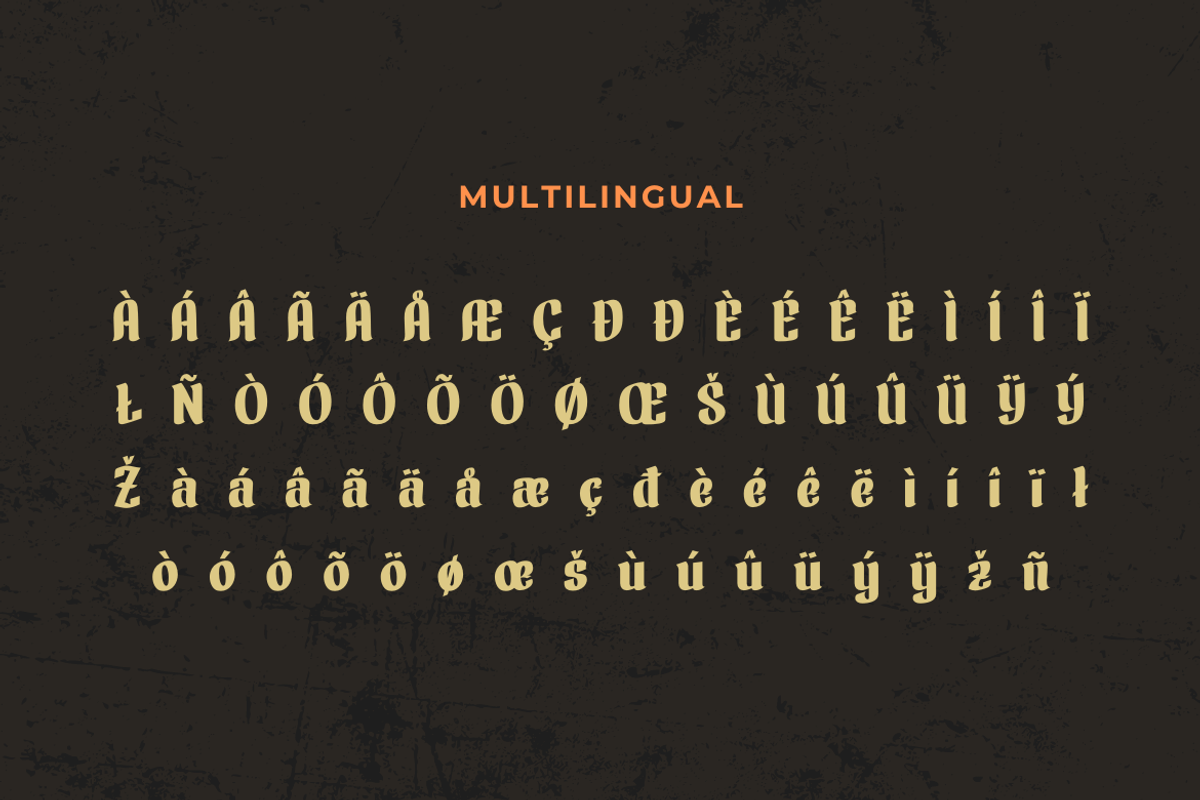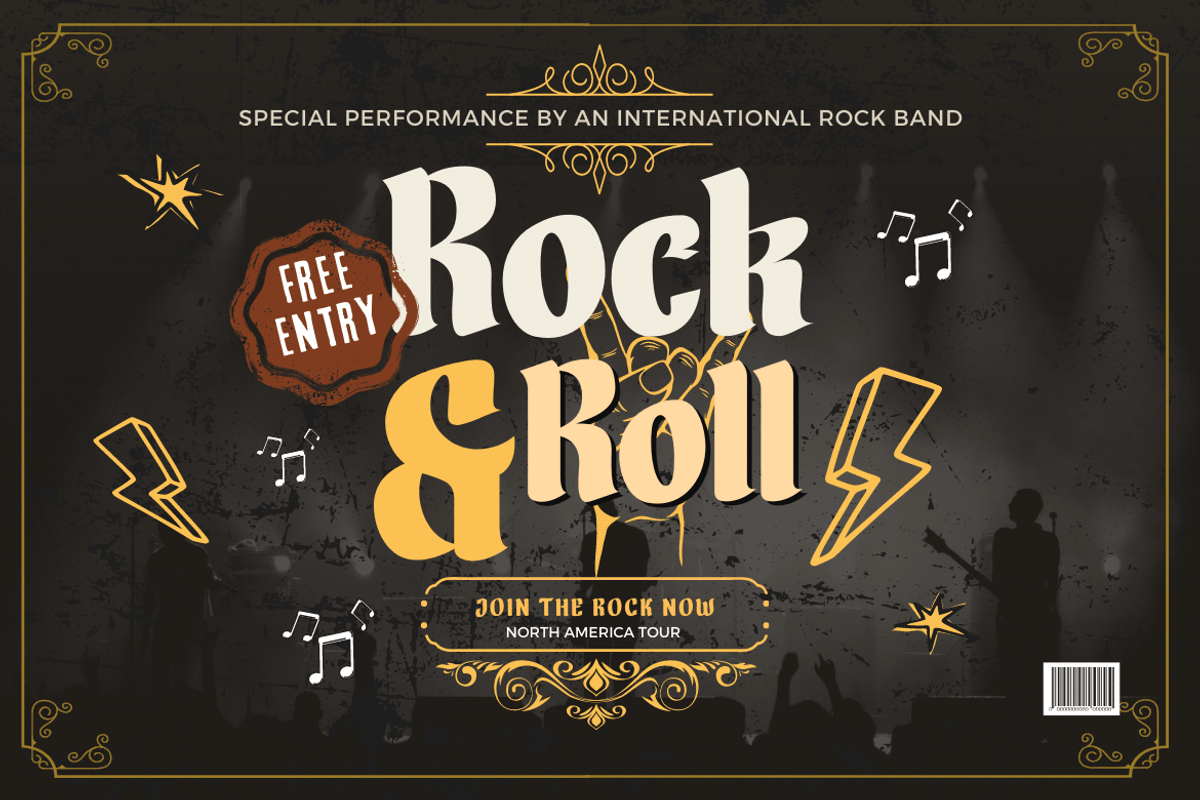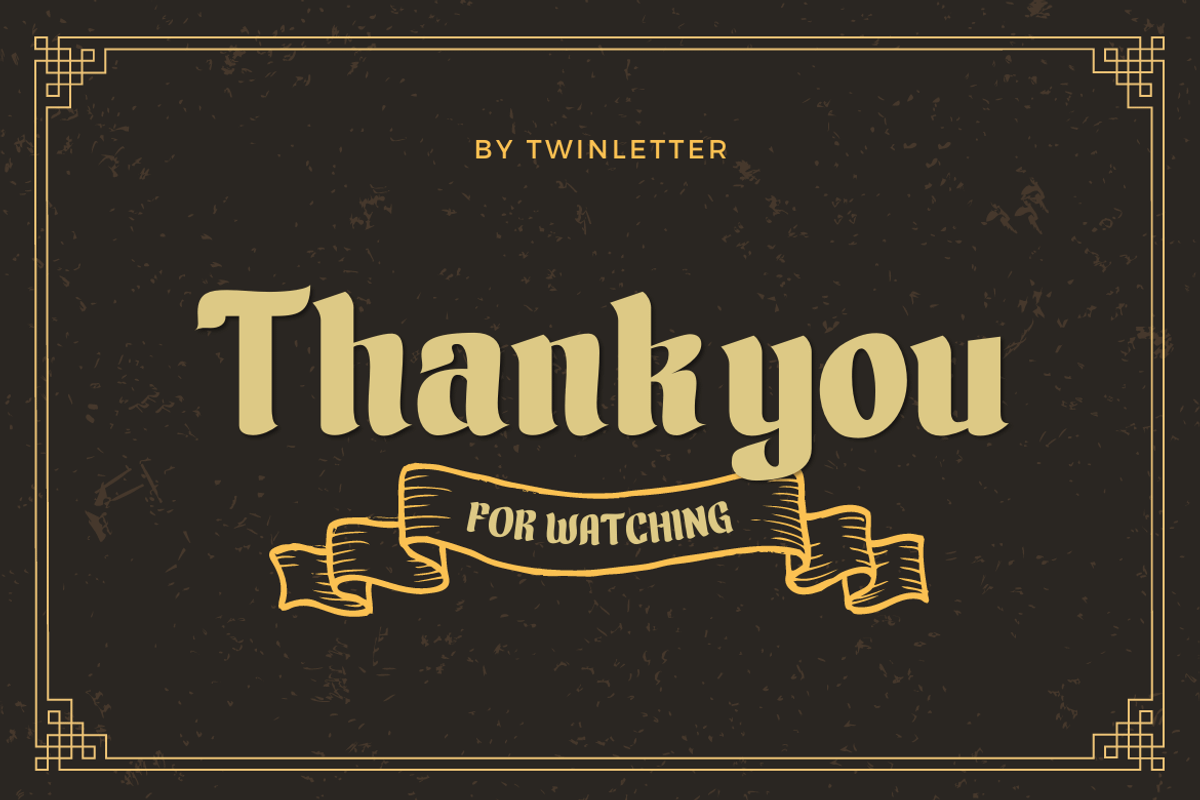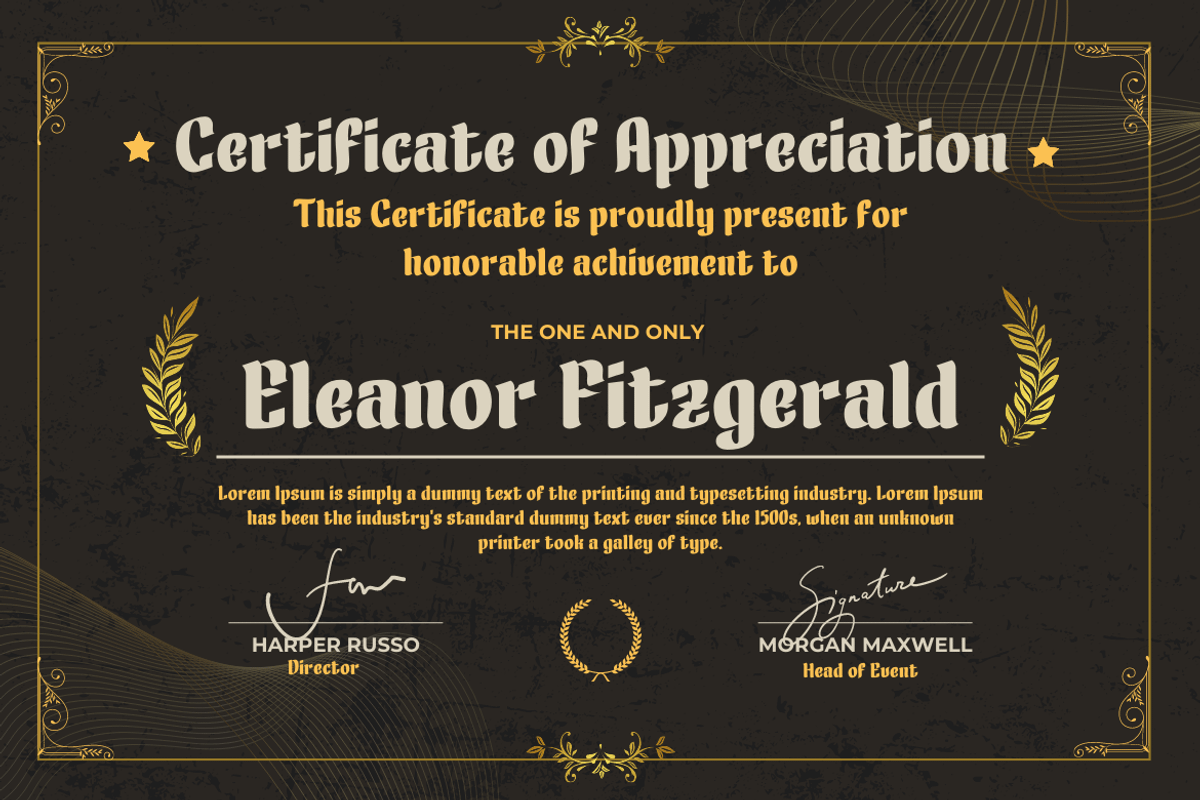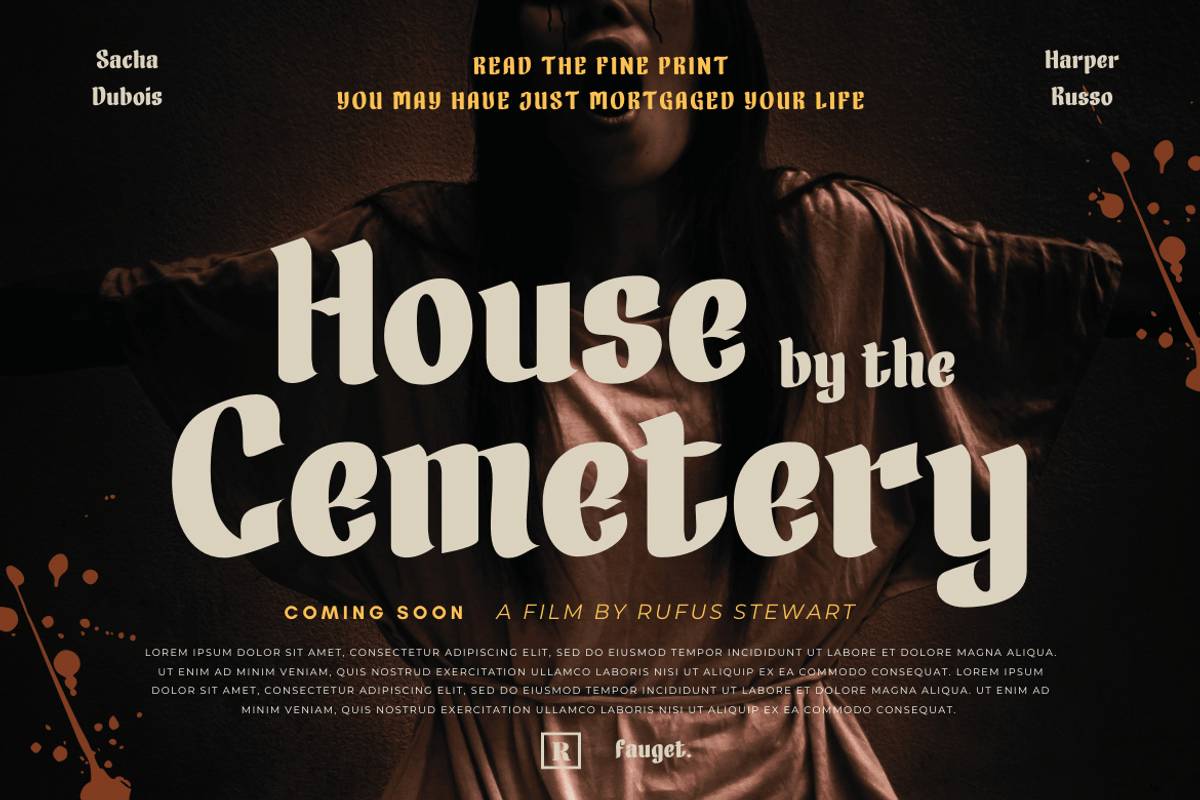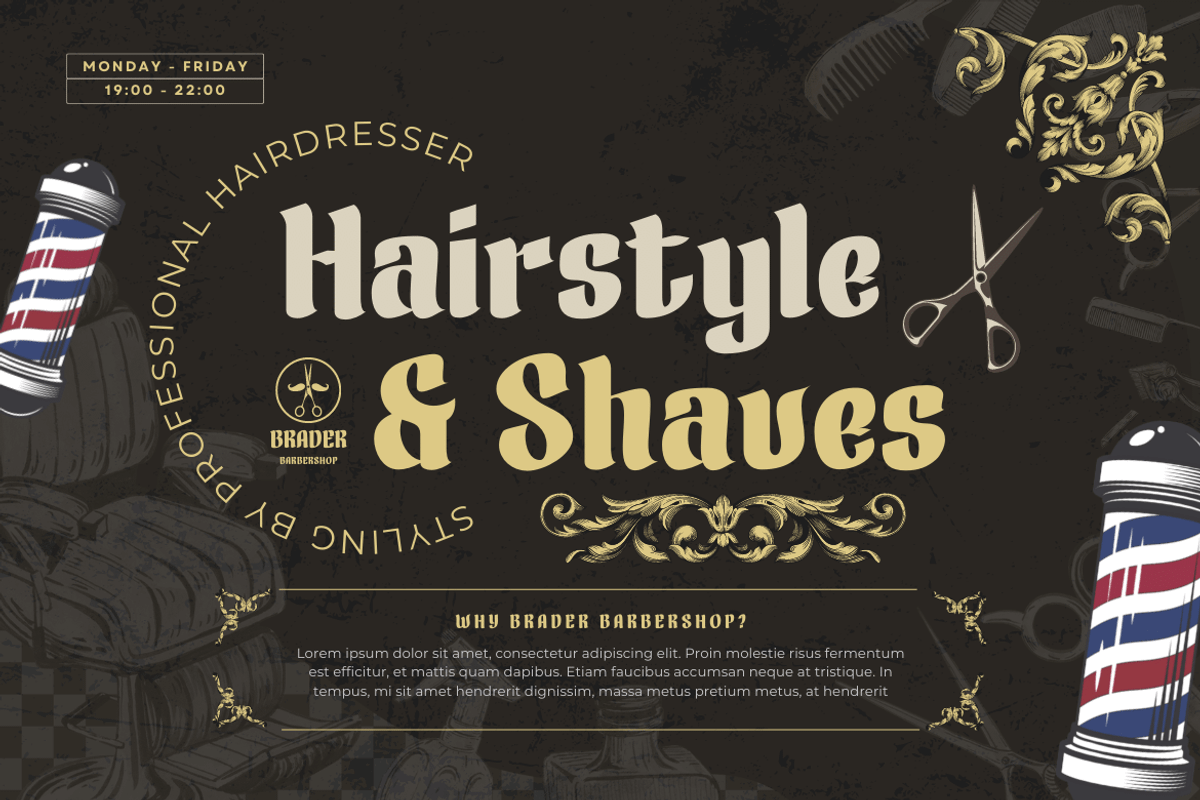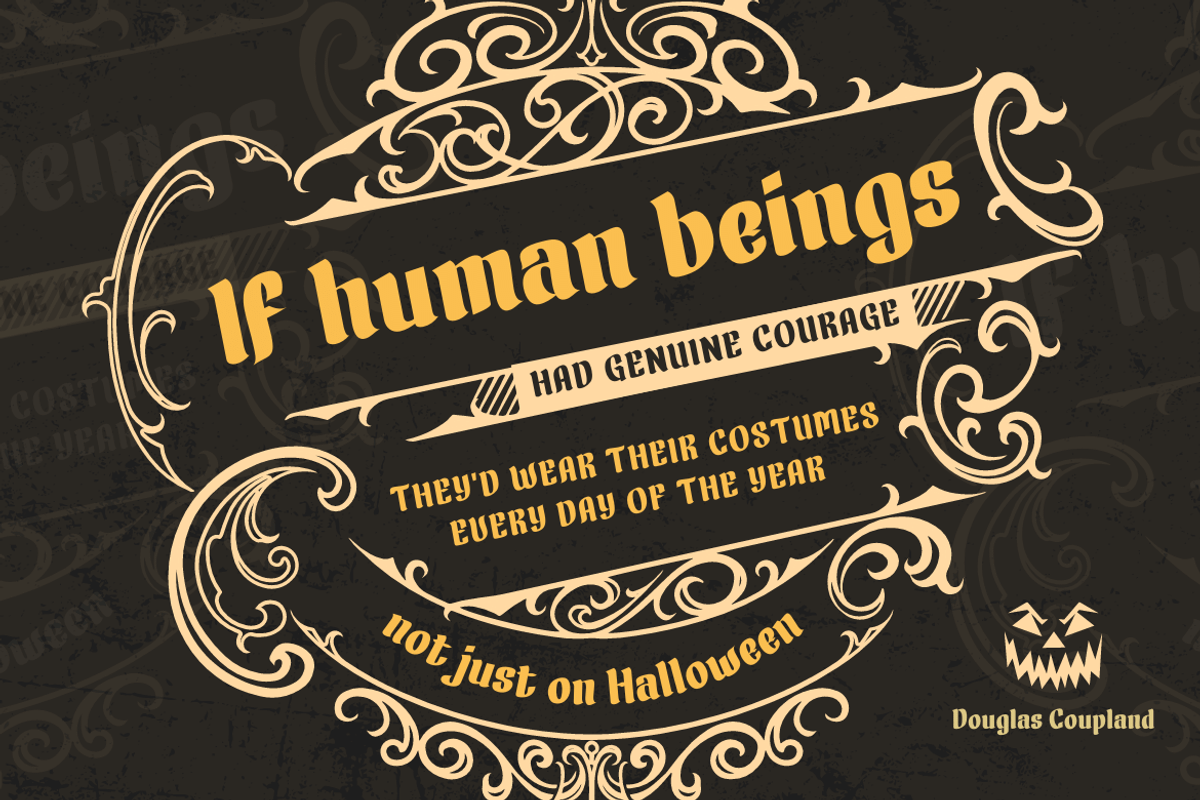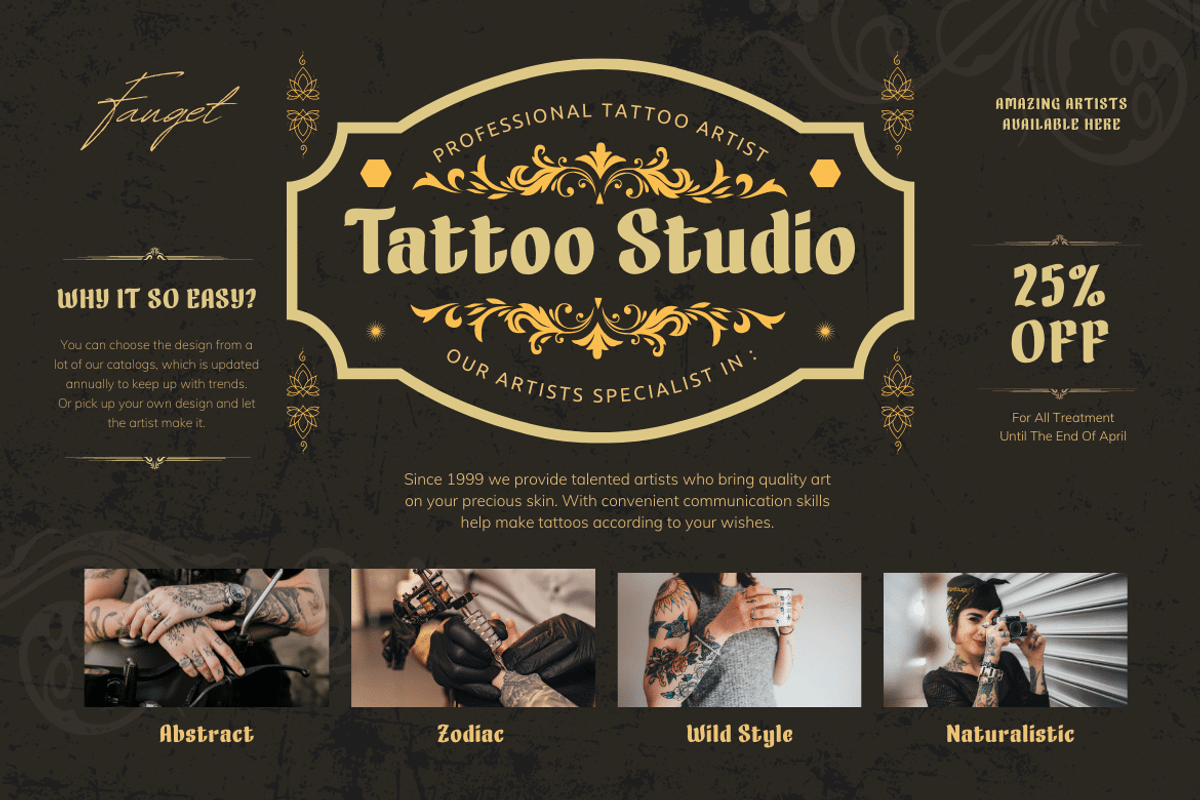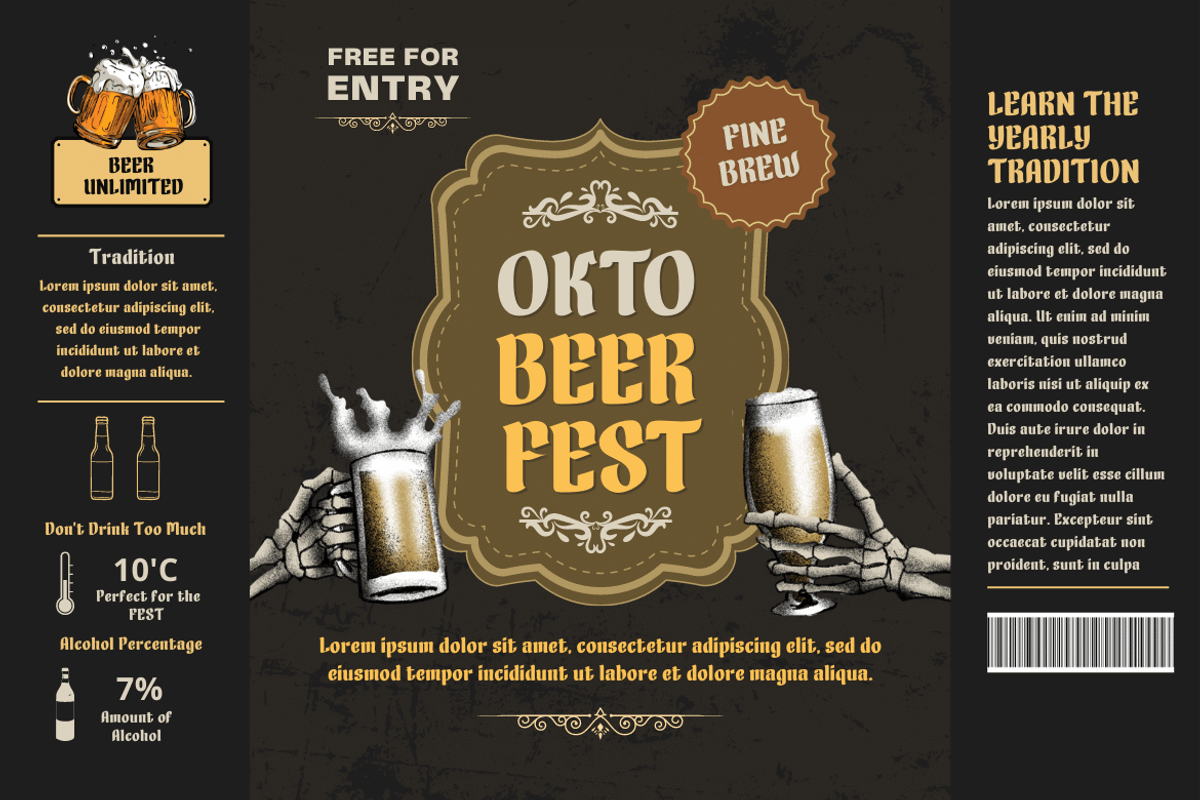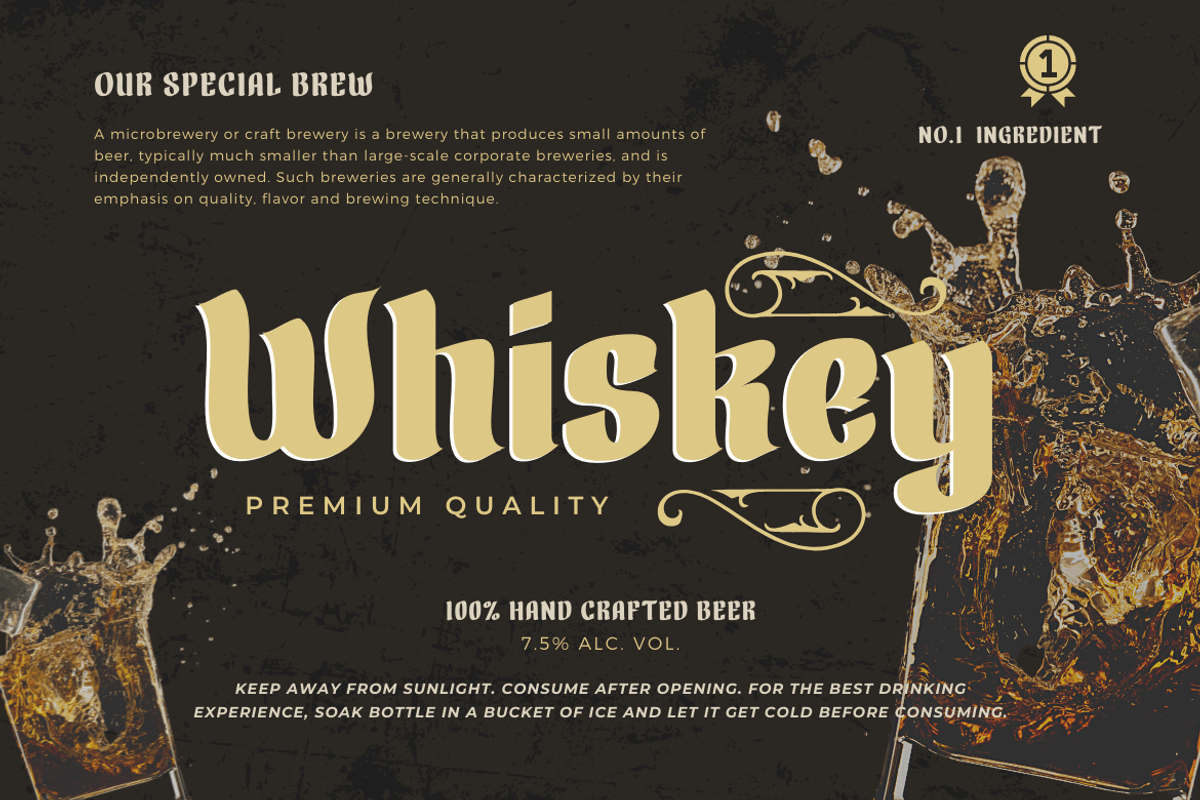
Fanhen
Fanhen Black font is our newest font. Blackletters have long been used in the design of posters, invitations, and packaging to provide a bold and classic look that exudes style and elegance. as well as this font when you use it will cause that effect in each of your projects.